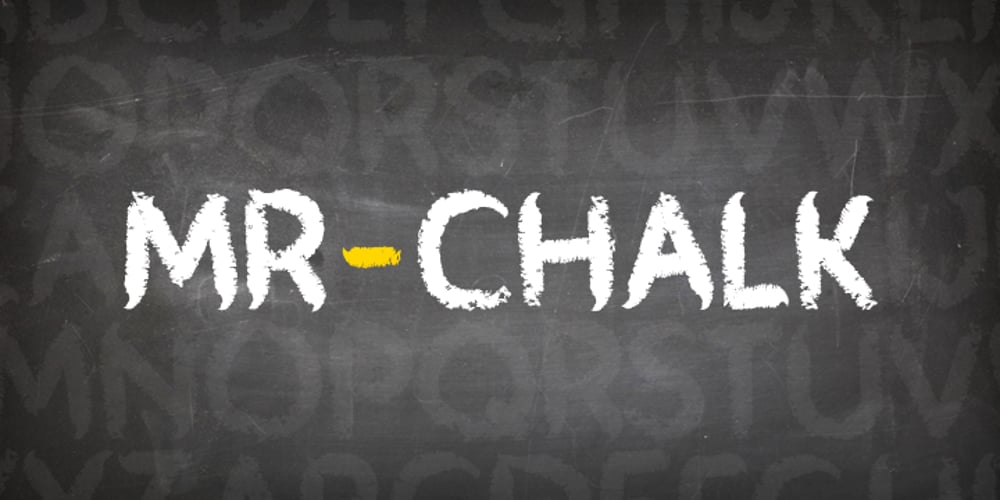
Mr Chalk Font Family was designed by Alex Haigh, Dawn Lewandowski and published by HyperFluro. Mr Chalk contains 2 styles and family package options. Mr Chalk has a simple goal: being Mr Chalk. This font sets out to occupy a form indistinguishable from the real thing, and comes as close as ink will get. Looking at this font you can hear the scrabble of writing on a chalkboard, though the character is more of a mischievous child than a strict teacher. Round and free, Mr Chalk is a light and fluffy font ideal for an impersonal and friendly tone. If you’re looking for another Chalk based font check out Lippy, a typeface for both lipstick and chalk based finishes!